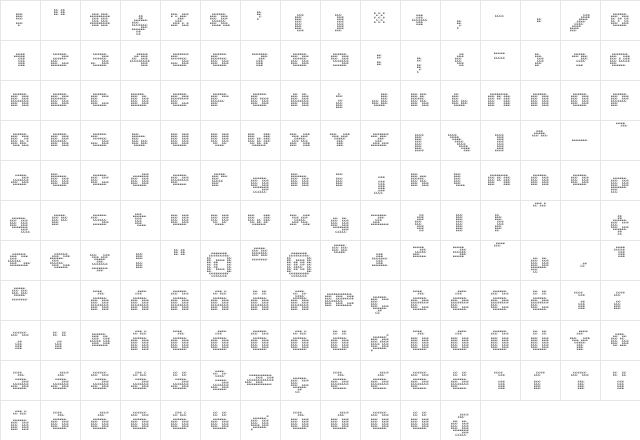
V5 Xtender Loin
Design Context for V5 Xtender Typeface
V5 Xtender offers clean, dependable letterforms without strong stylistic allegiance, making it a practical choice for designers who need flexibility.
Pro Tip: Pair V5 Xtender with a font of contrasting weight or personality to build a more expressive typographic hierarchy.